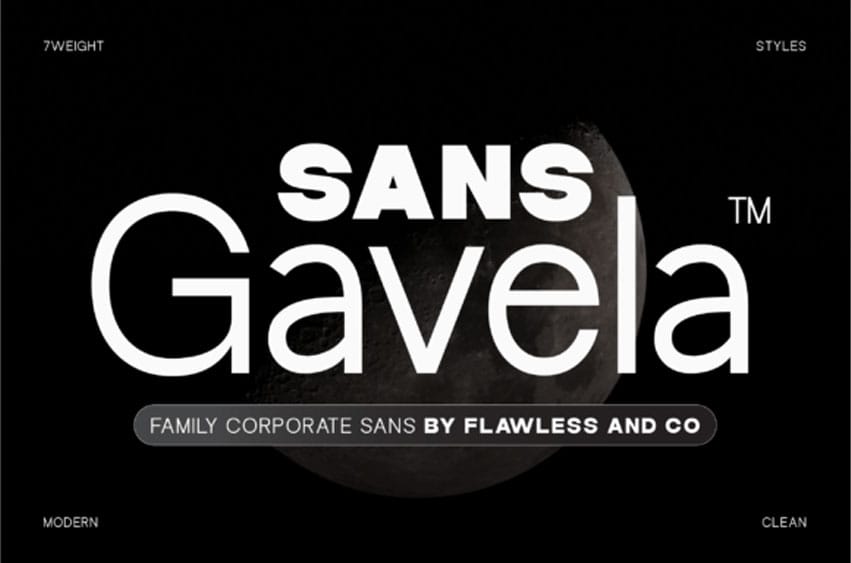
Gavela Font is a modern corporate sans serif font family designed to deliver professionalism, clarity, and versatility across a wide range of business and branding applications.
Featuring clean letterforms, balanced proportions, and a refined contemporary structure, Gavela creates a trustworthy and confident visual presence that works seamlessly in both print and digital environments.